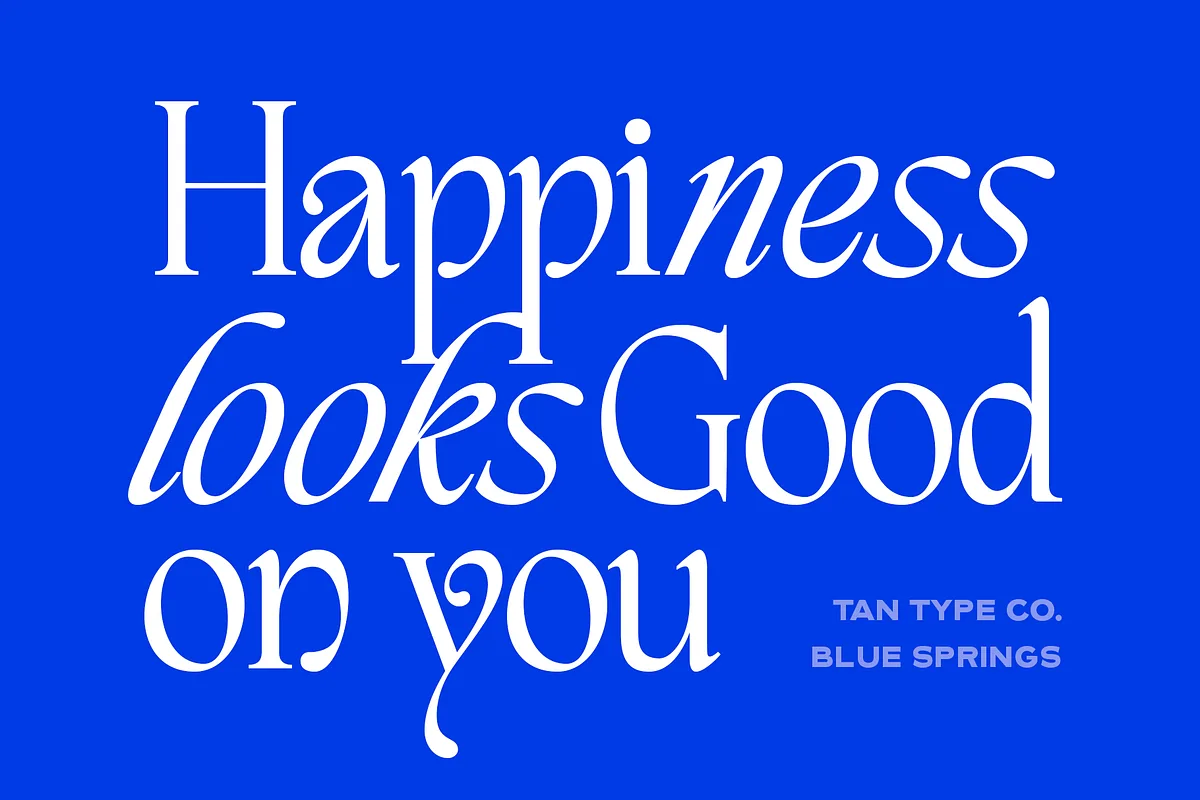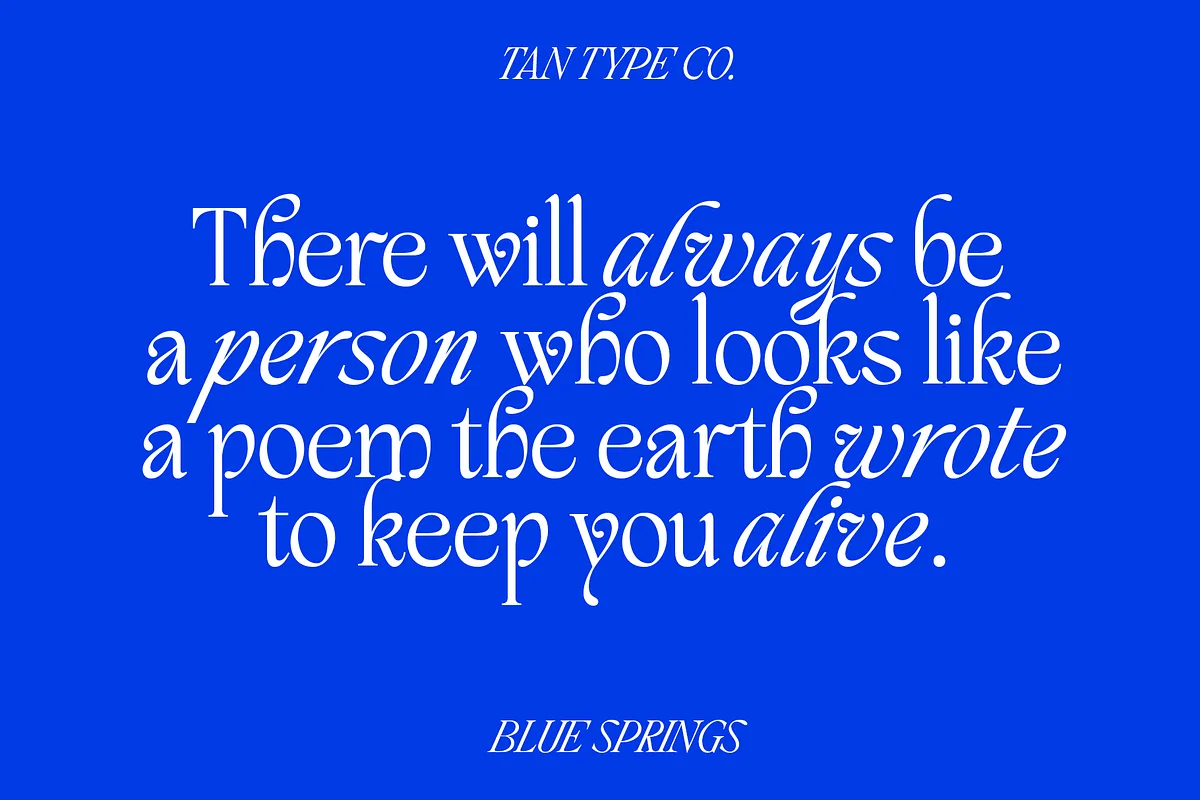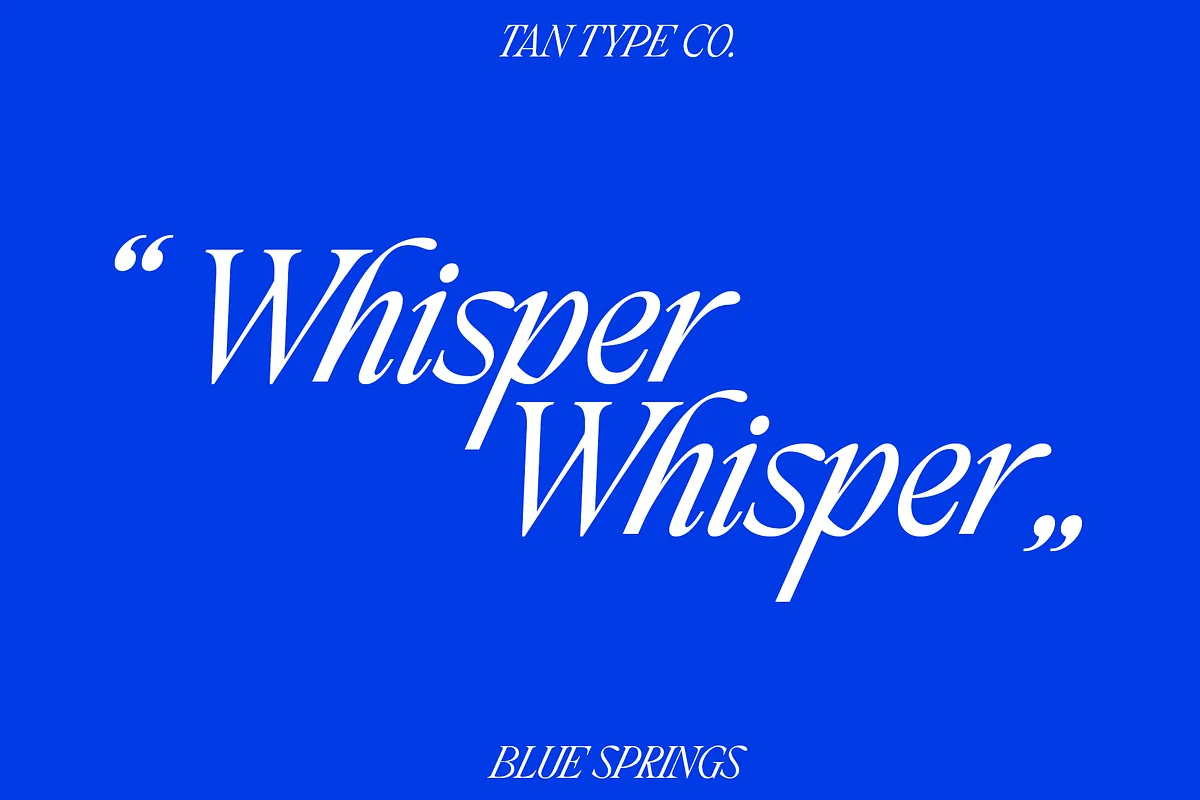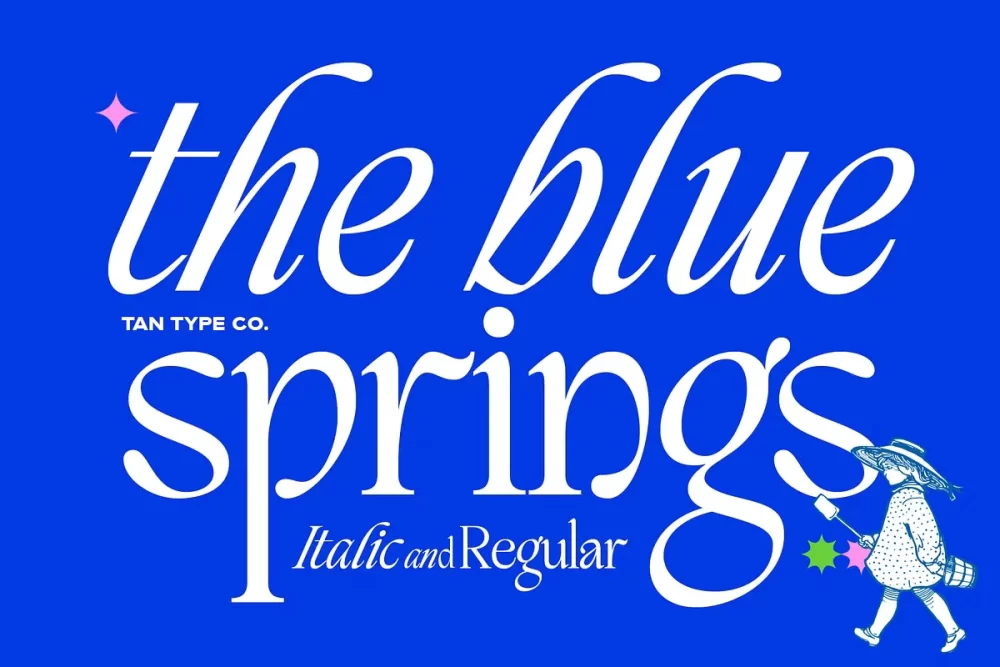
TAN BLUE SPRINGS is a modern classic serif font that’s anything but boring. It has that timeless, classic feel, but with a playful twist that makes it feel fresh and full of personality.
With both regular and italic options, it’s super versatile and works for everything from branding to editorial designs. The font has that elegant vibe, but it’s got just enough character to keep things fun. Whether you’re going for something sleek and stylish or a little more laid-back, Blue Springs brings a cool mix of charm and sophistication.
TAN BLUE SPRINGS Font – Classic Serif